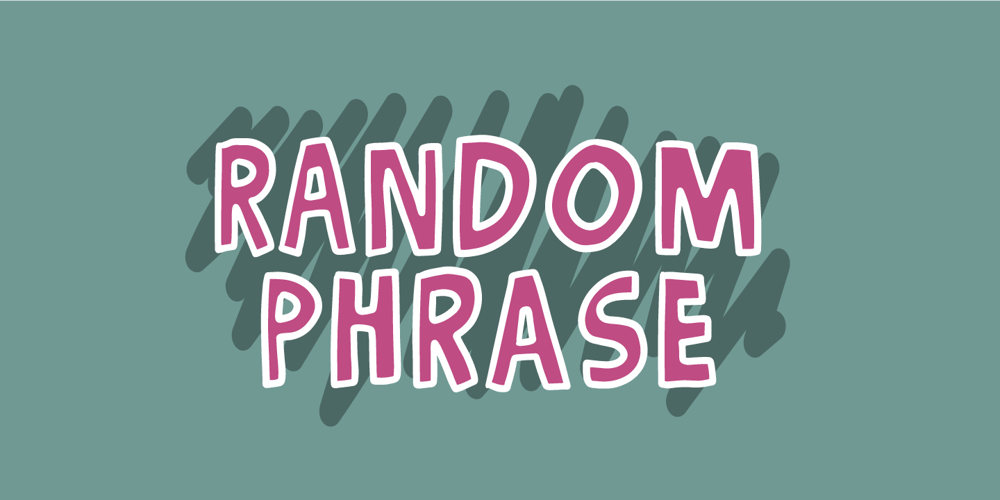
Random Phrase Font Family was designed by Jakob Fischer and published by Bogstav. Random Phrase contains 3 styles and family package options. Every now and then you can use a good phrase, and luckily there’s a lot to choose from. This font also have a lot to choose from, because I’ve added 7 different (and hastily written) versions of each letter.